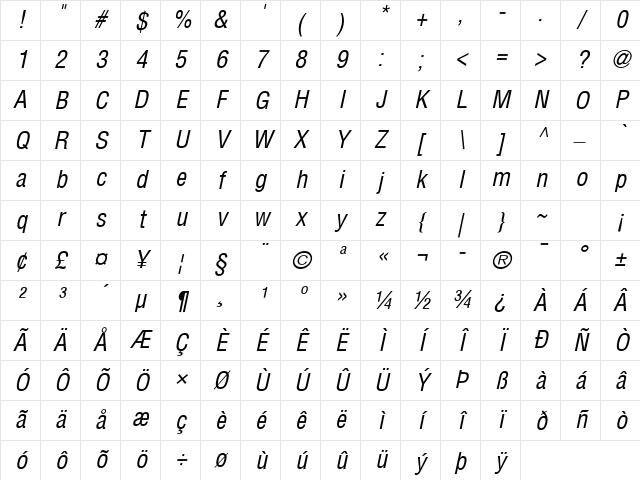
Complete Helvetica Condensed Italic glyph index. Displaying only characters natively supported by Helvetica Condensed Italic font.
Helvetica Condensed is a composed and adaptable typeface that performs quietly and consistently across a wide range of design contexts. The slanted form adds forward momentum and visual energy. Its narrow stance lets it pack a punch even in space-constrained designs.
Pro Tip: Use Helvetica Condensed for emphasis, pull quotes, and subheadings where its slanted energy can add rhythm to the layout.